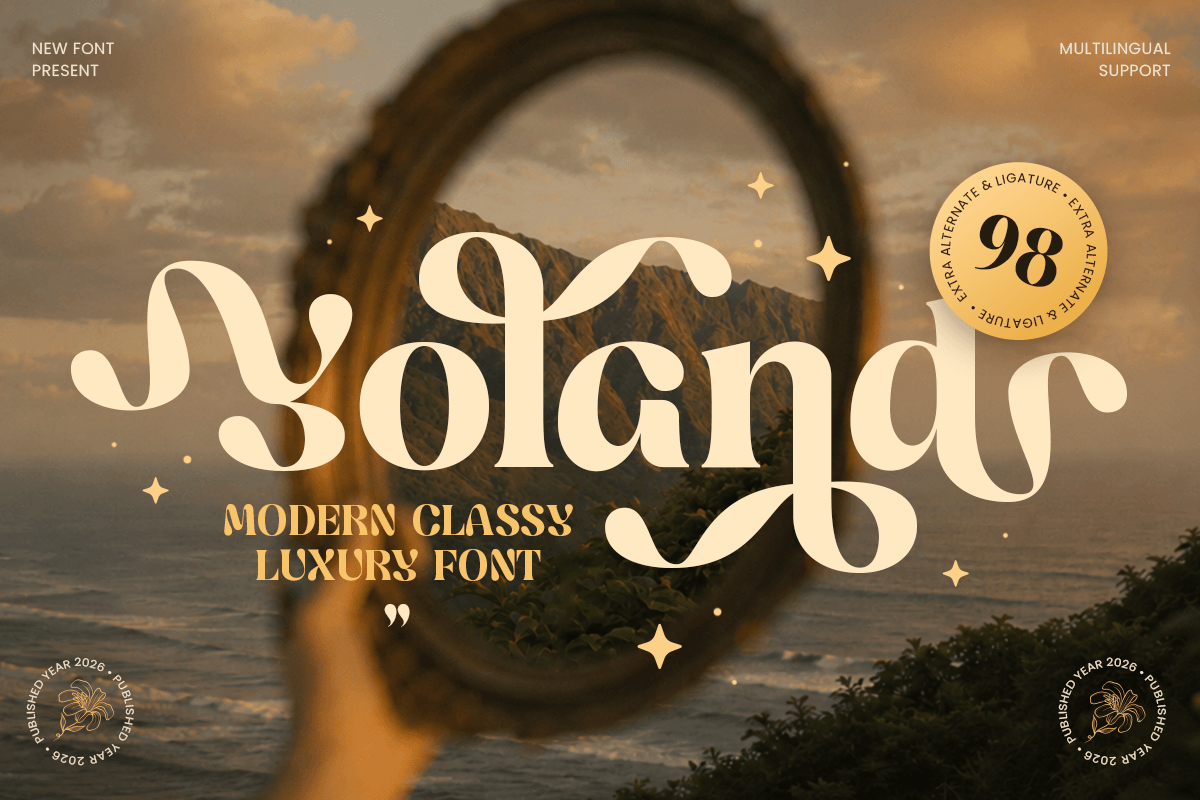
Yoland
-Bold Elegant Serif Font
Yoland - Bold Elegant Serif Font
Yoland is a bold elegant serif font designed to make a powerful statement while maintaining timeless sophistication. Featuring strong serif details, graceful curves, and refined proportions, this typeface is ideal for luxury branding, fashion editorials, premium packaging, and high-impact typography.
The bold structure of Yoland creates a commanding presence, while its elegant styling ensures a polished and upscale appearance. Whether used for logos, magazine covers, advertising campaigns, or product branding, it delivers a perfect balance between confidence and refinement.
Inspired by contemporary luxury and classic editorial typography, Yoland is crafted for designers who want to create memorable visual identities with a premium aesthetic across both print and digital media.
Yoland – Bold Elegant Serif Font Features
• Bold serif design with elegant luxury character
• Perfect for branding, editorials, fashion, and premium packaging
• Strong visual presence with refined typographic details
• Ideal for logos, magazine headlines, and luxury campaigns
• OpenType features for advanced typographic styling
Make a bold impression with Yoland – the ultimate elegant serif font for luxury branding and sophisticated design. ✨👑